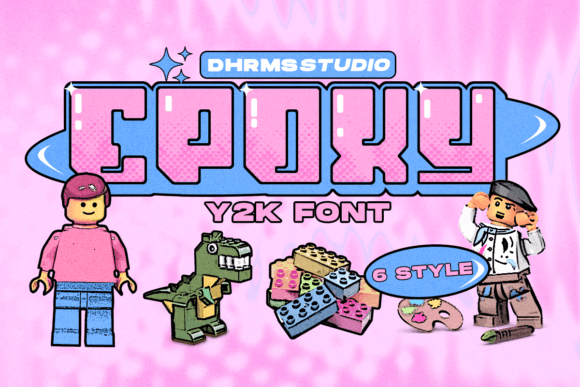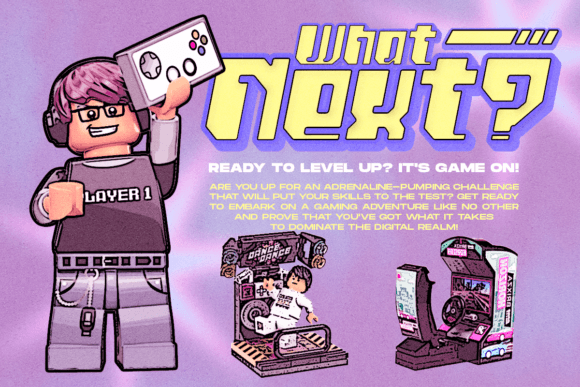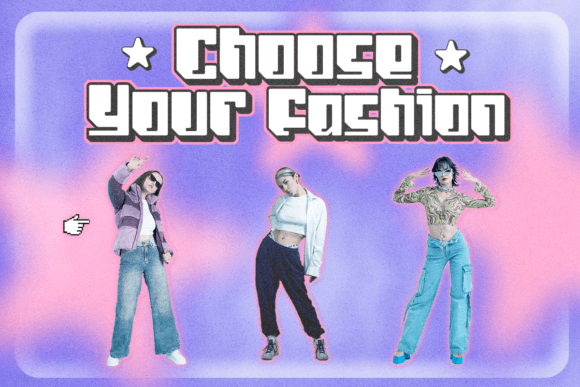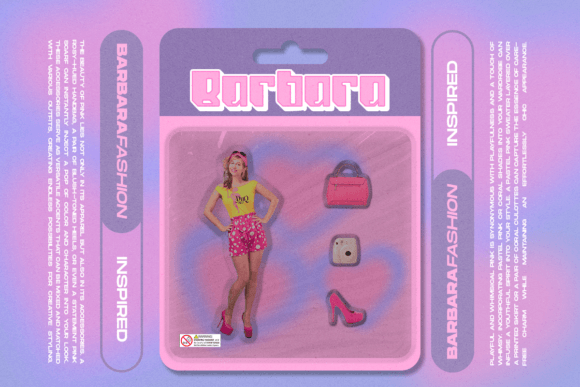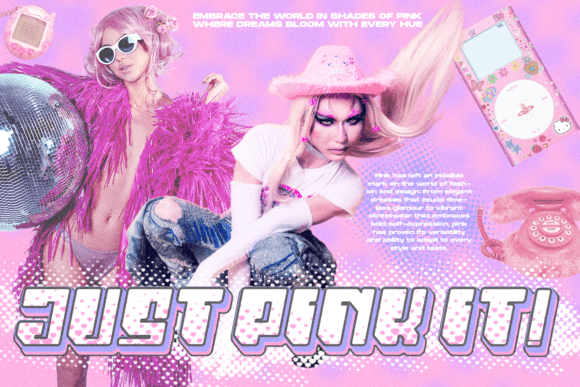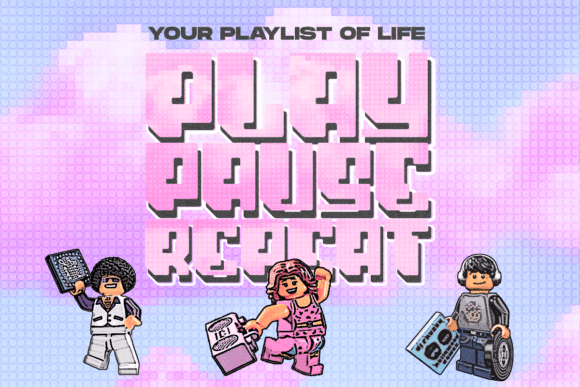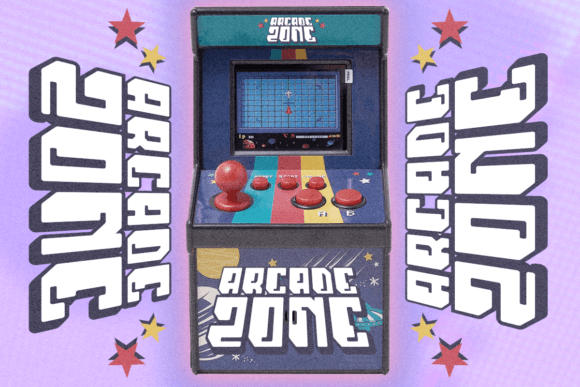
Get Ready to Swoon: The Timeless Epoxy Font
Who else remembers the magical world of Barbie cartoons where every detail was a pastel dream? I do, and I’m pretty sure it’s safe to say that many designers out there share the same nostalgia. It’s moments like these that spark creativity, and for me, it’s exactly what I felt when I stumbled upon the Epoxy Font.
This display font is a loving tribute to the iconic style of the y2k era, taking us back to a time when everything was dipped in pretty pink perfection. With six captivating styles to choose from, Epoxy Font is a treasure trove for designers looking to infuse their work with a playful, retro vibe. Whether you’re a seasoned pro or just starting out, this font is sure to bring a smile to your face and a touch of nostalgia to your designs.
Epoxy Font Key Features
- Font Family: Epoxy Font is a sans-serif typeface designed for digital use, available in multiple weights and styles.
- Size: Epoxy Font is designed to be highly scalable, suitable for use in various sizes, from small text to large display headings.
- Resolution: Optimized for high-resolution displays, making it ideal for use in digital media, such as websites, mobile apps, and video games.
- Unique Characteristics: Epoxy Font features a distinctive, geometric design aesthetic with clean lines, making it suitable for modern and minimalist designs.
Epoxy Font Review
I recently had the chance to work with Epoxy Font, and I must say it’s been an interesting experience. Here are my honest thoughts:
- Unique aesthetic**: Epoxy Font has a distinct look that’s sure to grab attention. Its futuristic design is perfect for projects that need a bold, edgy feel.
- Highly customizable**: The font is fully editable, allowing you to adjust its shape, size, and color to fit your design needs.
- Great for digital projects**: Epoxy Font is particularly well-suited for digital applications, such as websites, apps, and video games.
- Limited legibility**: While Epoxy Font is great for digital projects, it can be challenging to read in smaller sizes or at a distance.
- Not ideal for print**: The font’s futuristic design may not translate well to print materials, such as business cards or posters.
Overall impression
Epoxy Font is a solid choice for designers who want to add a touch of futurism to their projects. While it may not be perfect for every application, it’s a great addition to any design toolbox. With some careful consideration of its limitations, Epoxy Font can be a valuable asset for creatives looking to push the boundaries of their designs.
Epoxy Font is commonly used in:
- Graphic design and branding
- Product packaging and labeling